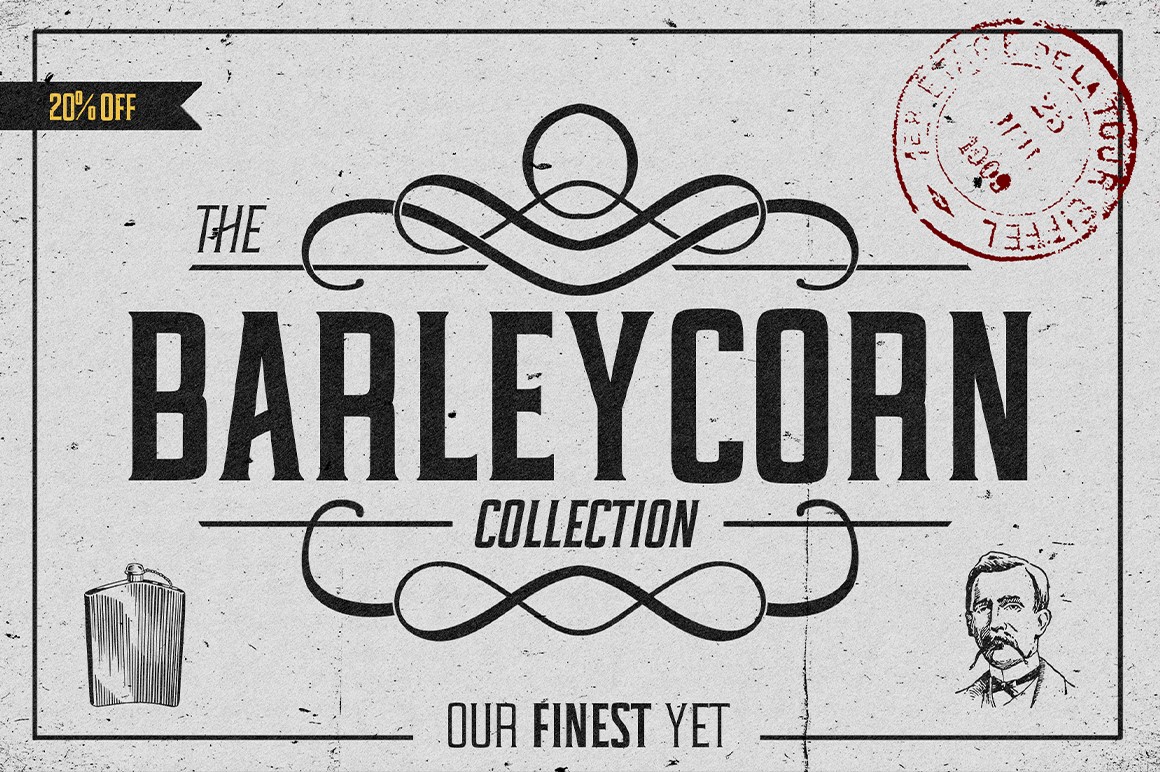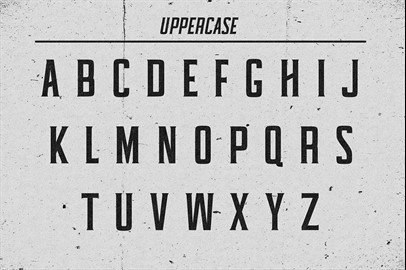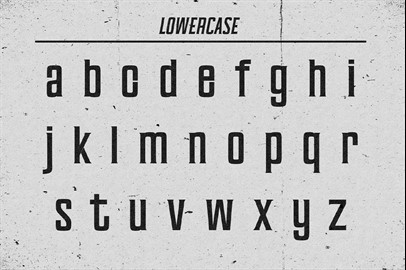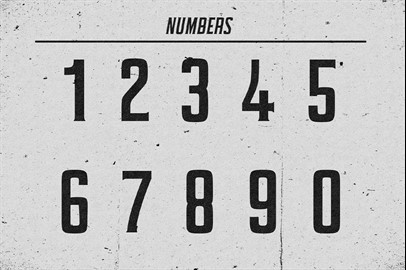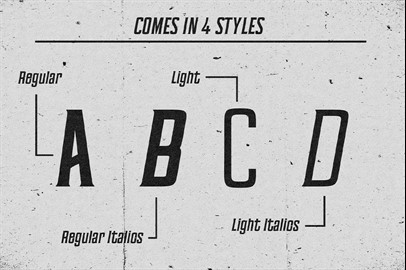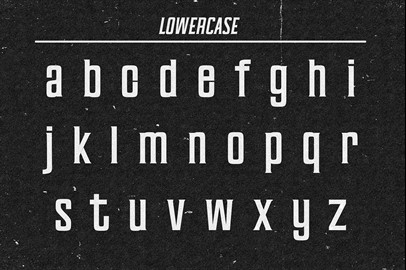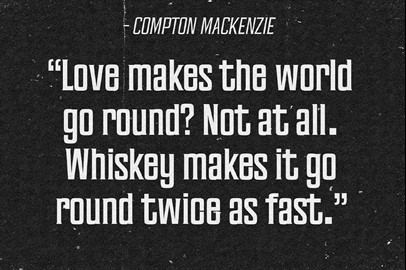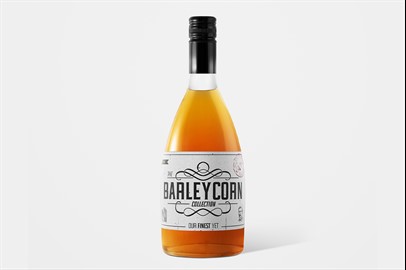
Barleycorn Typeface
Introducing
Barleycorn
, a vintage label typeface design. Inspired by vintage and current label designs, this typeface will give your next project a vintage feel to it. It comes in regular and light styles and contains FREE illustrations.